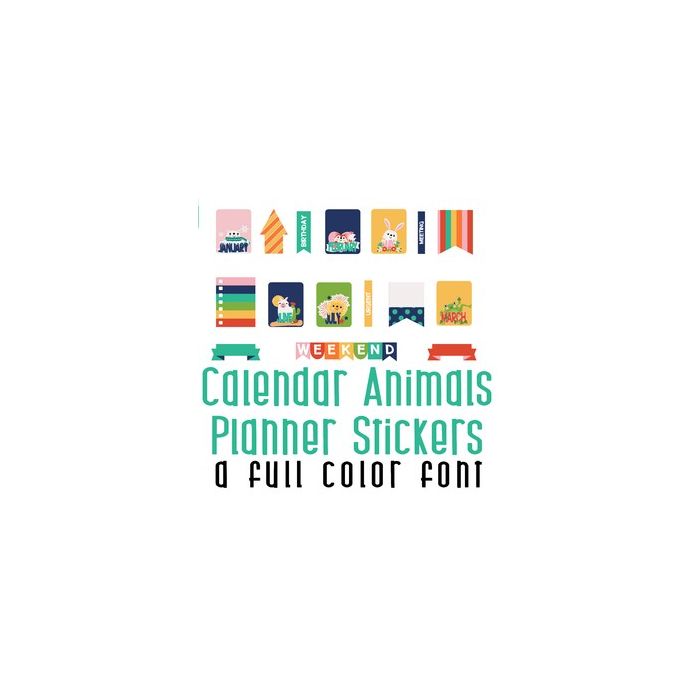
This adorable full-color doodlebat font features 52 Calendar Animal Planner Stickers. Perfect for cards, crafts, gifts, decor, scrapbook pages, planner stickers, and more! Glyphs are A-Z and a-z